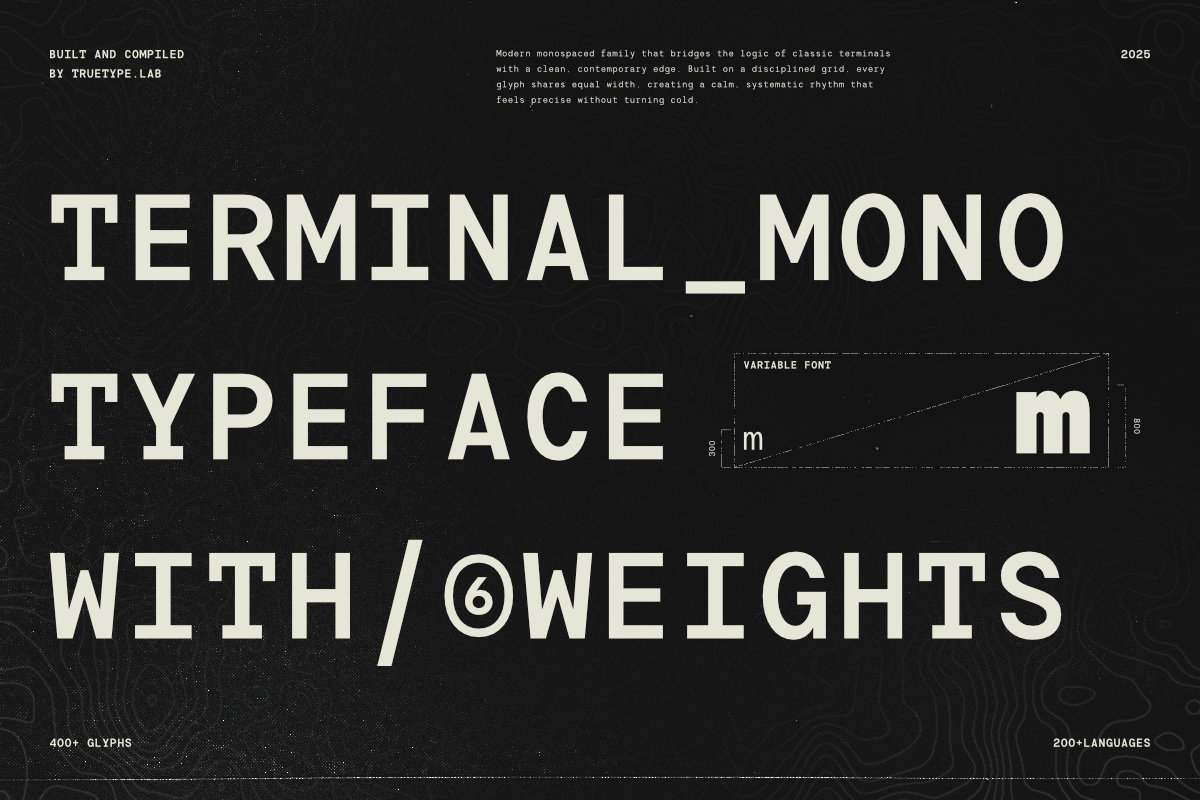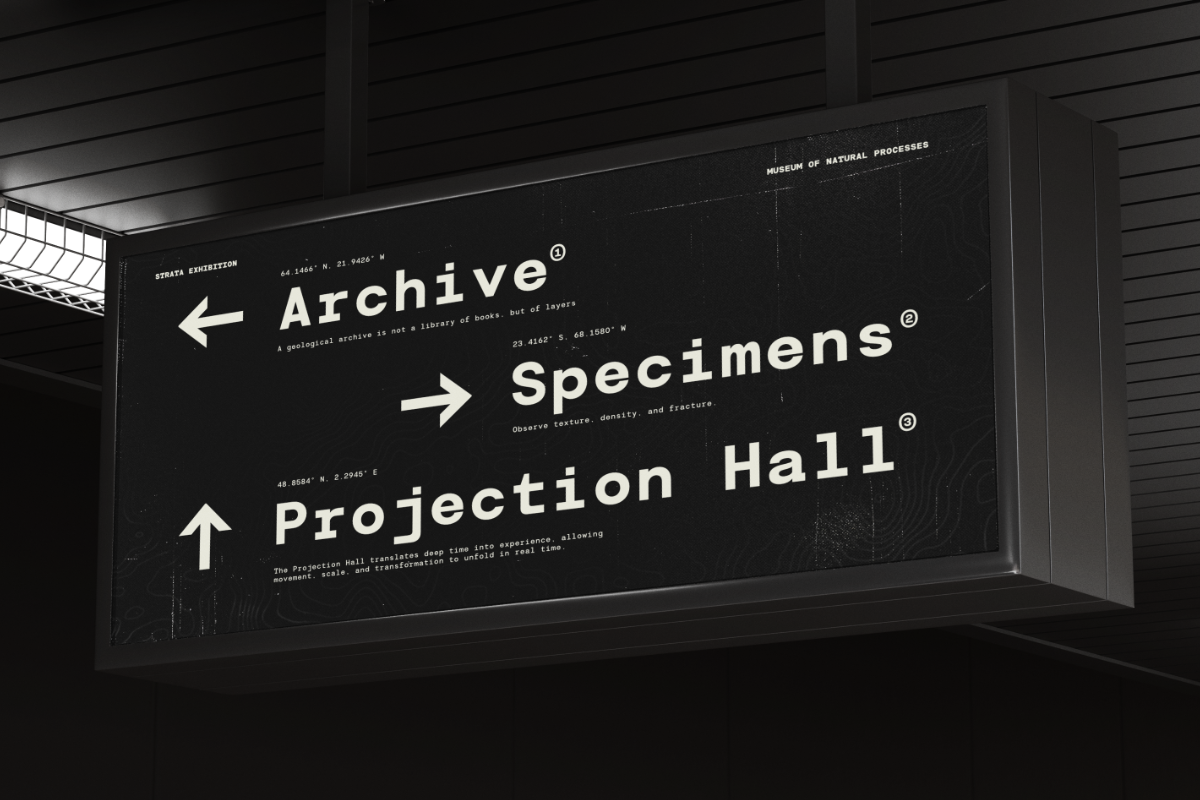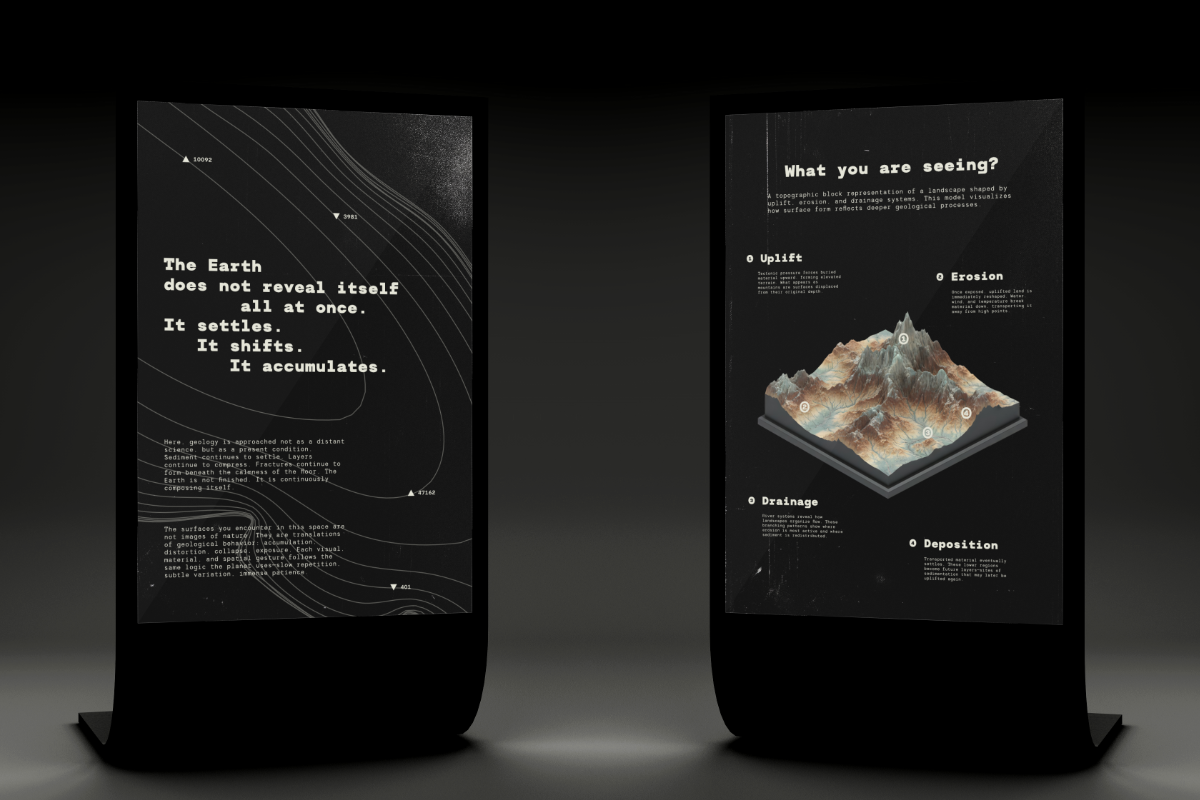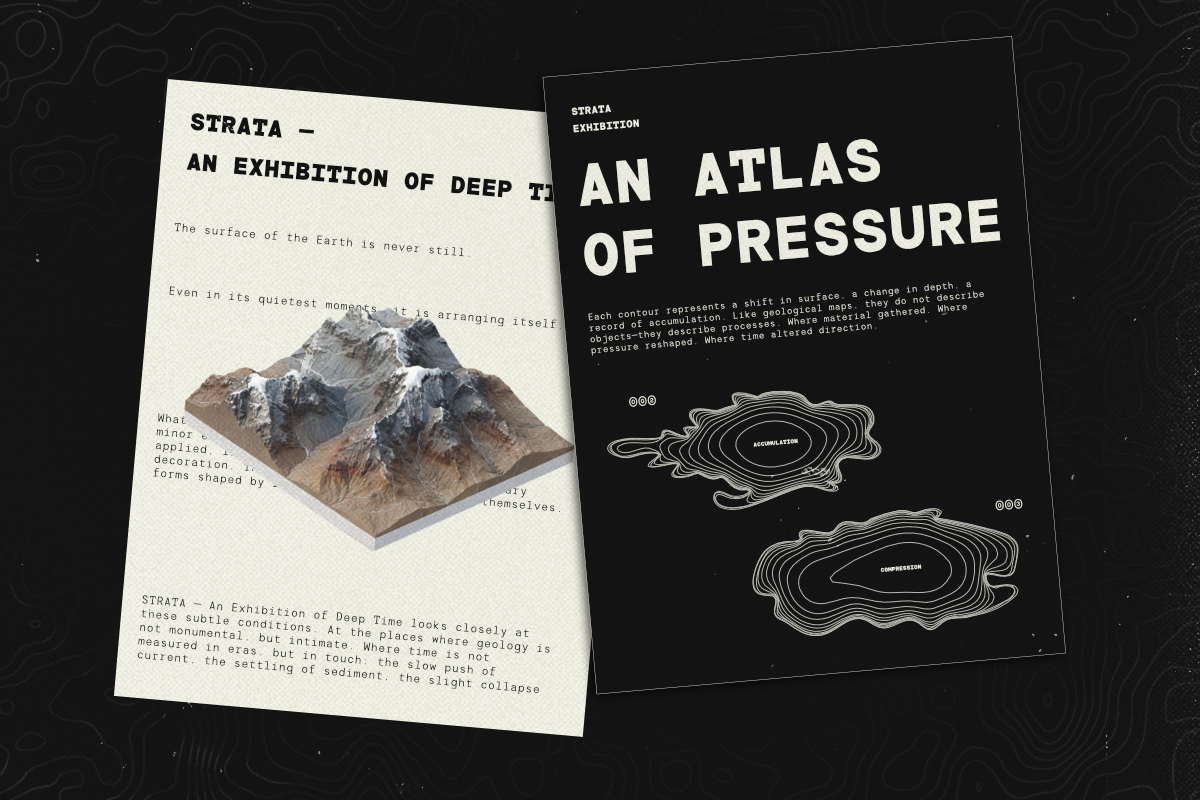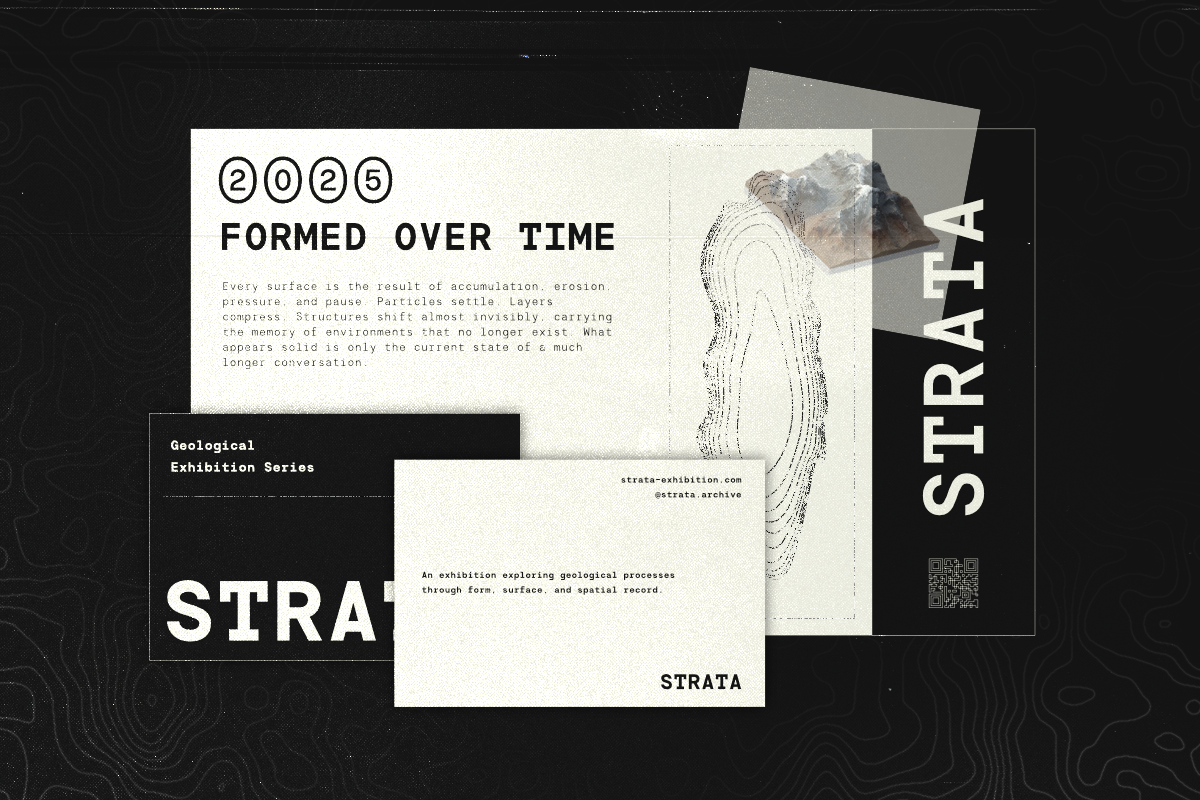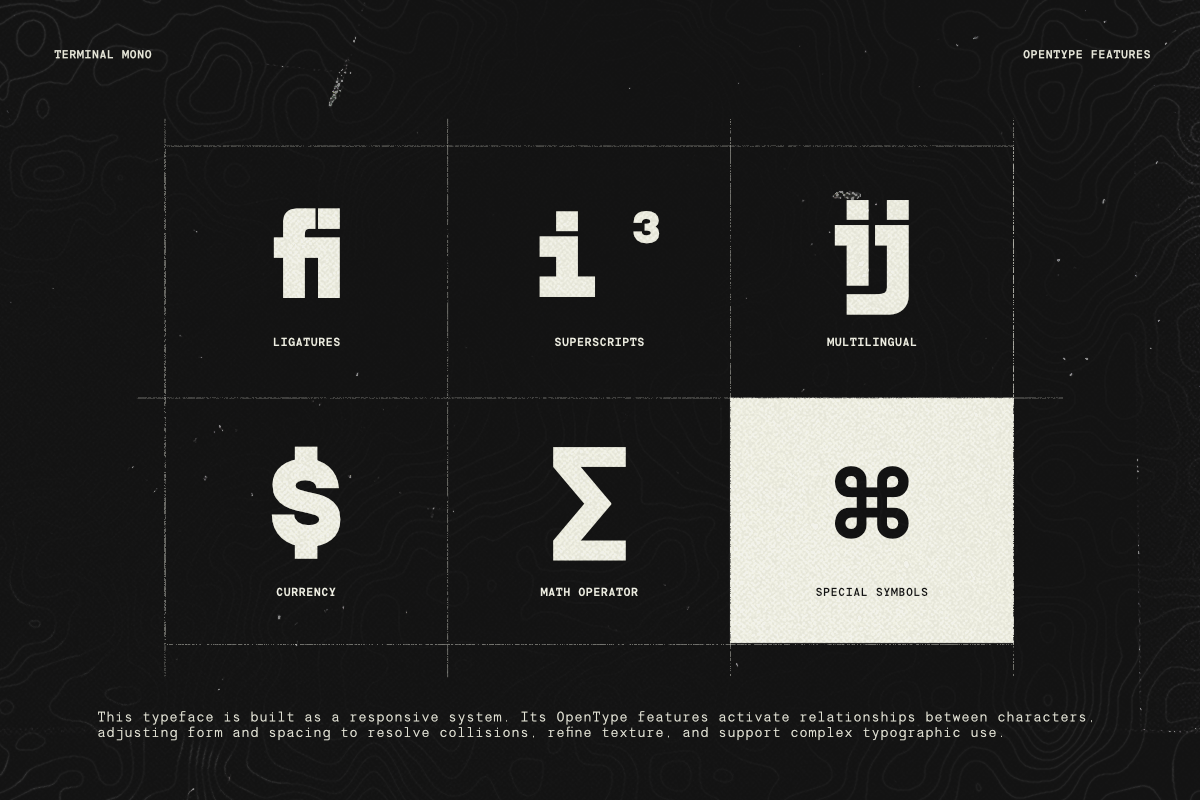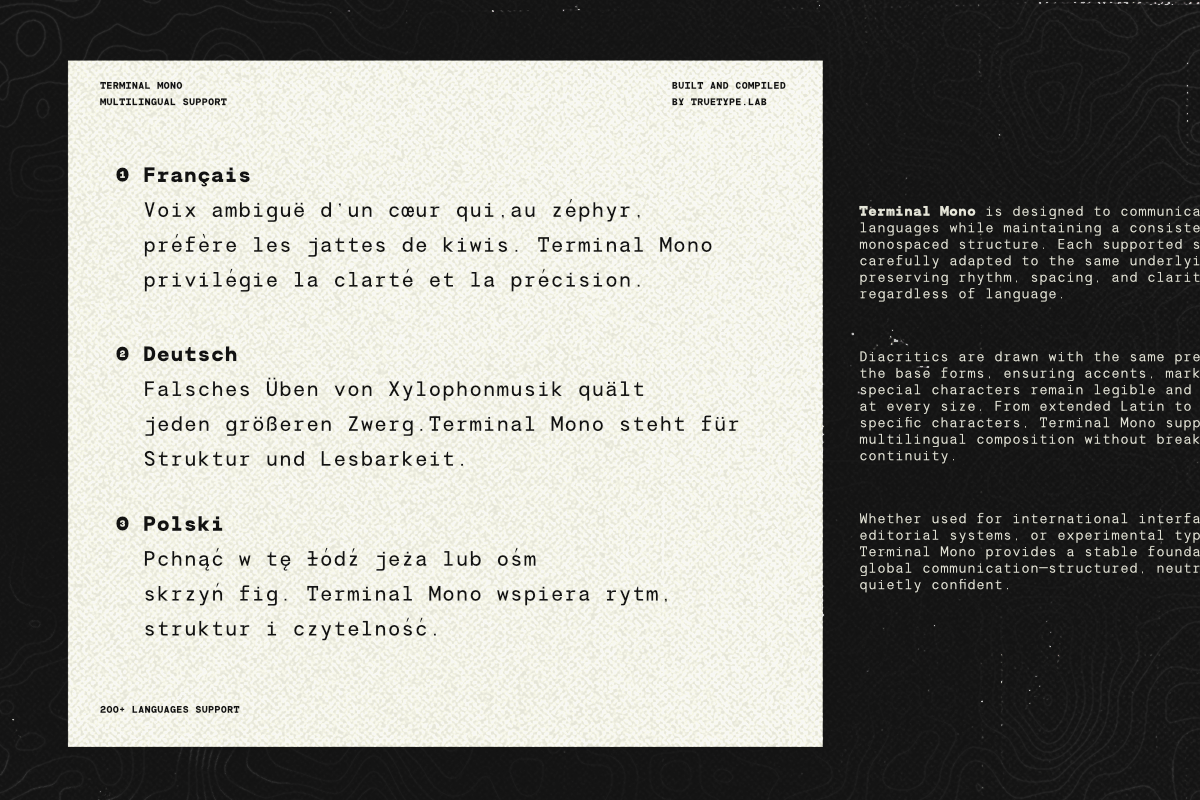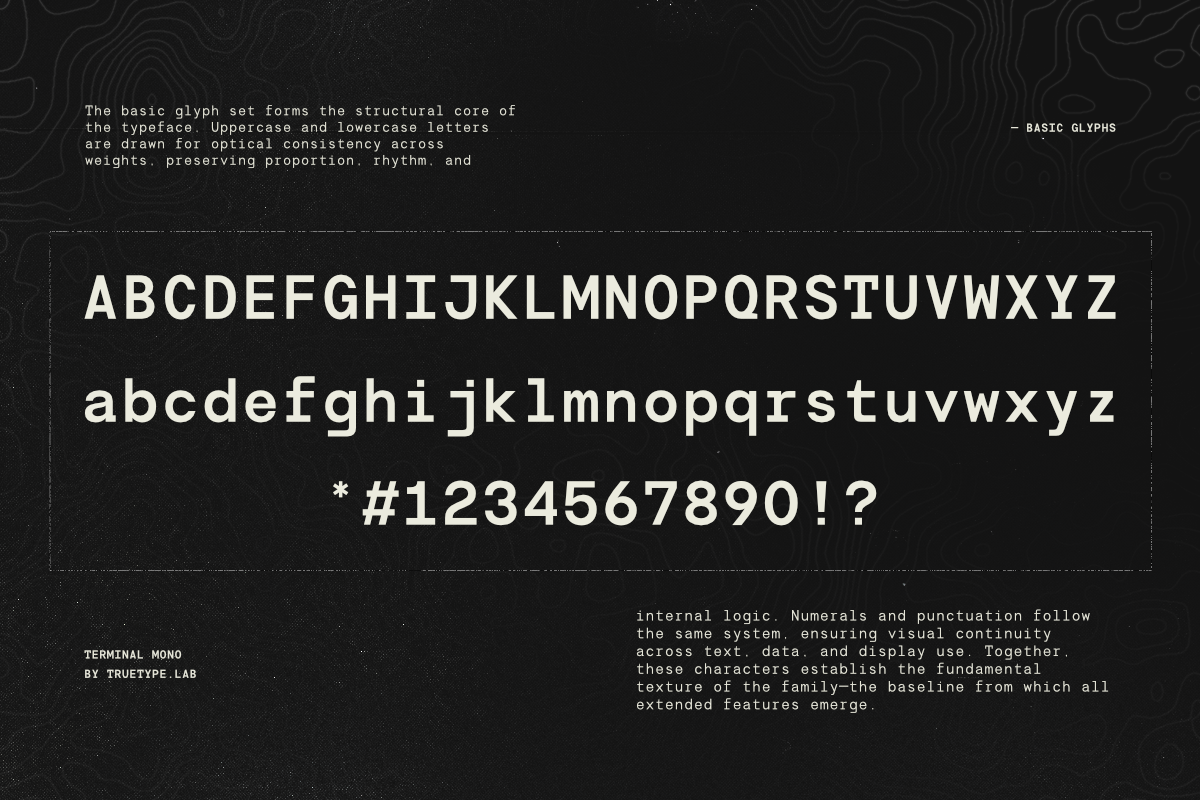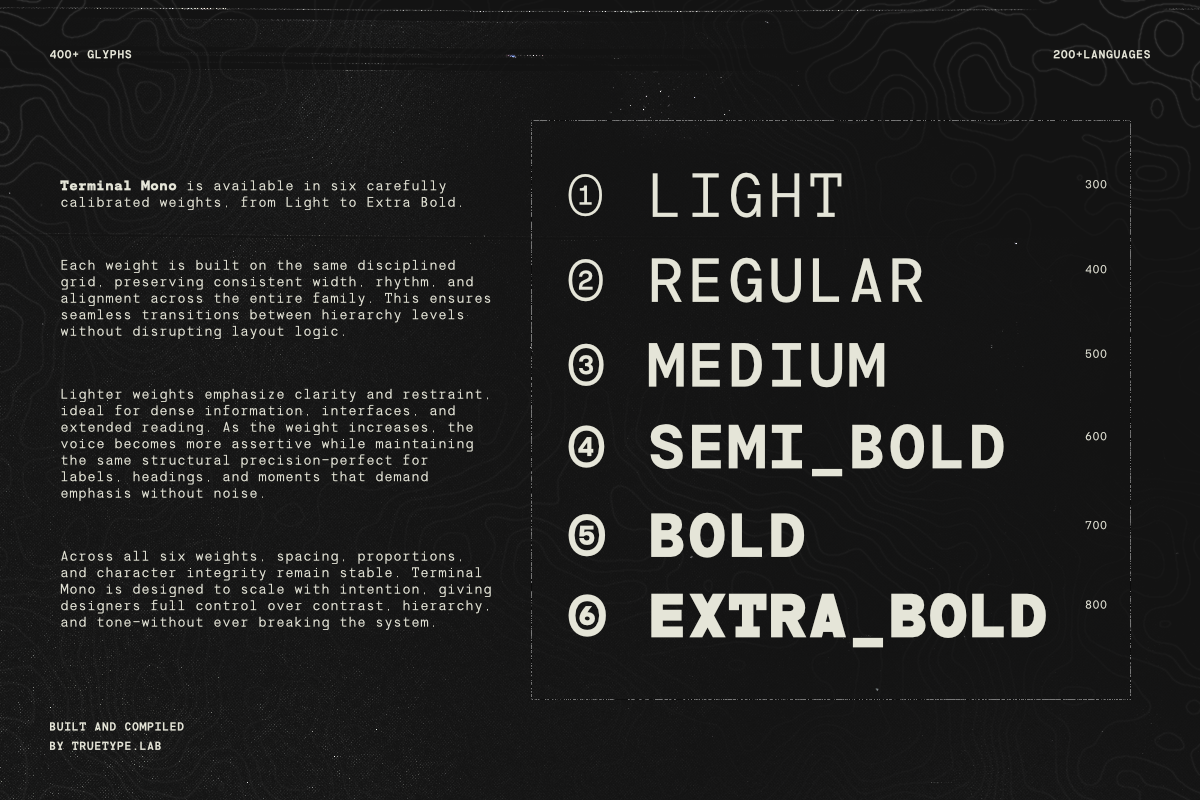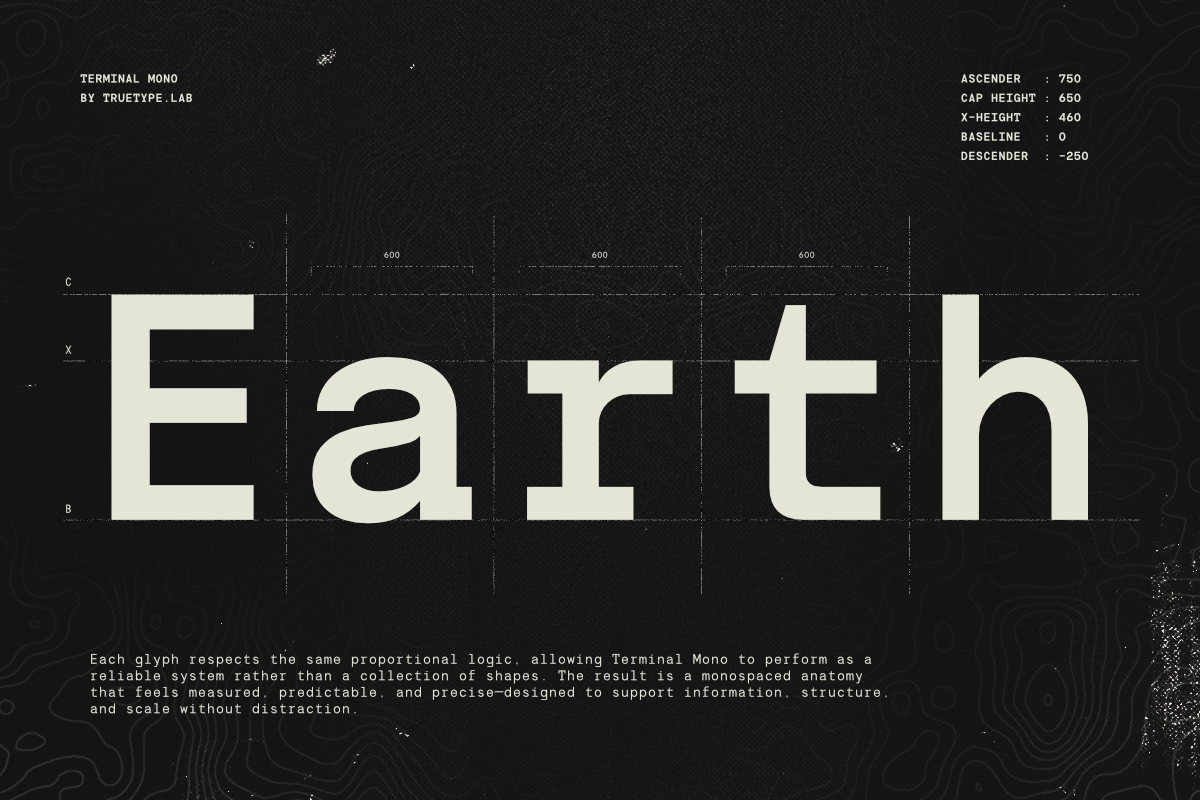
Terminal Monospace Precision, structure, and typographic system.
Terminal Monospace by Truetype is a modern monospace typeface designed as a complete typographic system rather than a collection of shapes. Built on a strict and consistent grid, every character shares equal width, creating a stable rhythm that feels precise, measured, and intentional.
Inspired by classic terminal typography and data-driven environments, Terminal Monospace introduces a softer, contemporary interpretation maintaining technical clarity without becoming cold or mechanical. Its proportions are carefully calibrated to ensure optical consistency across all weights, preserving alignment, spacing, and structural logic throughout the family.
The typeface includes six carefully balanced weights, ranging from Light to Extra Bold, all built on the same underlying structure. This allows designers to create hierarchy, contrast, and emphasis without breaking layout logic. Terminal Monospace is also available as a variable font, enabling smooth transitions across the weight axis while maintaining consistent spacing and proportions.
With over 400 glyphs, extended language support (200+ languages), and structured numeral styles—including regular, circled, and filled figures Terminal Monospace excels in environments that demand clarity and control. It performs equally well in dense informational layouts, editorial systems, UI/UX interfaces, exhibition graphics, technical documentation, and conceptual visual identities.
Terminal Monospace is a typeface about systems, time, structure, and accumulation designed to scale, adapt, and remain stable across digital and print applications.
KEY FEATURES
- Modern monospace system typeface
- 6 weights: Light → Extra Bold
- Variable font with continuous weight axis
- Consistent grid-based structure
- 400+ glyphs
- 200+ language support
- Multiple numeral styles (regular, circled, filled)
- Optimized for UI, editorial, data, and display use
- Designed for clarity, rhythm, and hierarchy